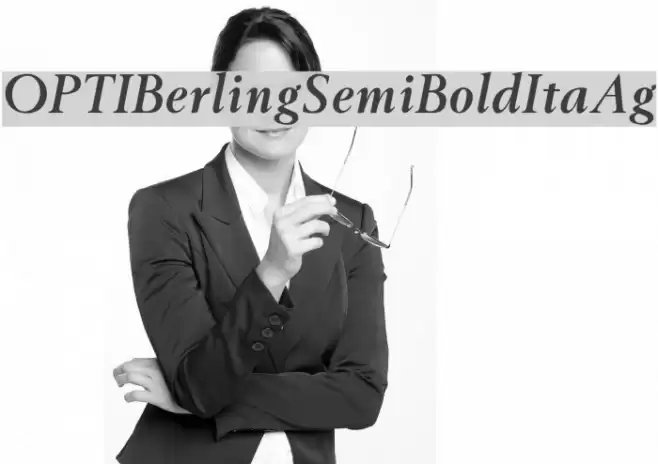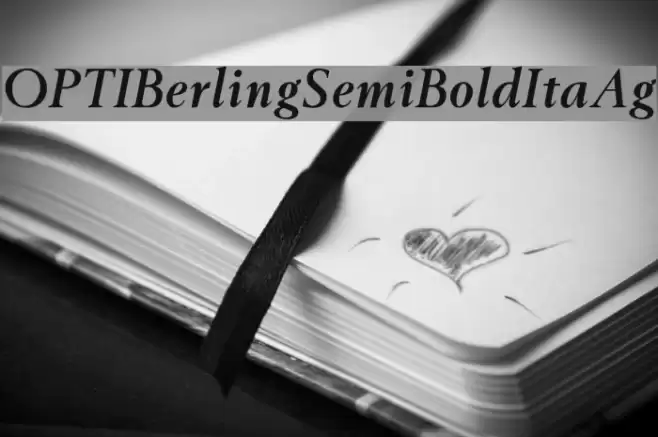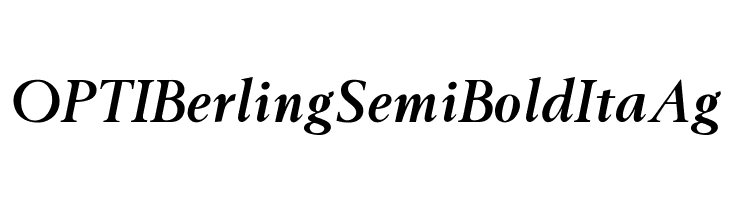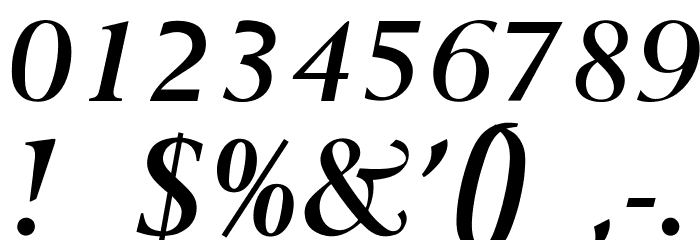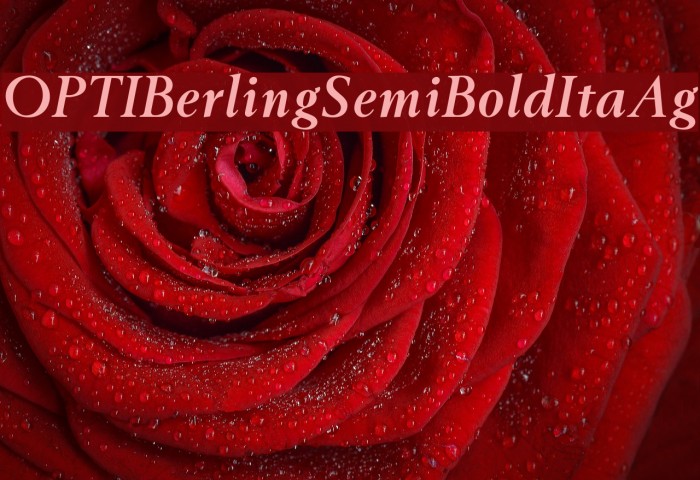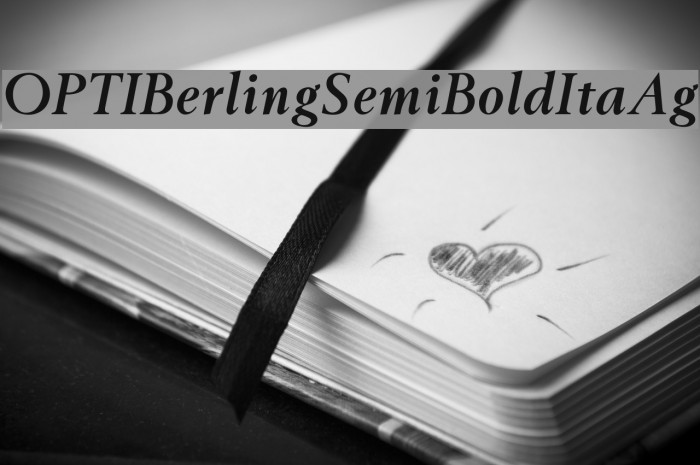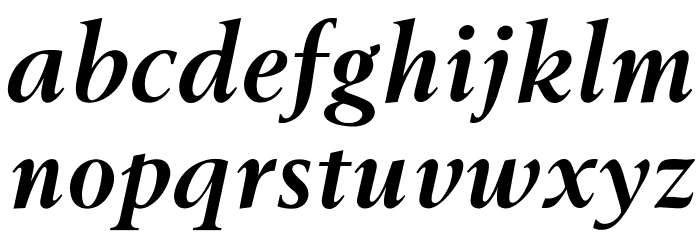
OPTIBerlingSemiBoldItaAg Font
OPTIBerlingSemiBoldItaAg Description
This elegant serif font features a semi-bold weight with a distinct italic style, giving it a sophisticated and classic appearance. The characters are well-defined with moderate contrast in stroke thickness, providing a balanced and readable text. The uppercase letters are slightly taller than average, while the lowercase letters maintain a traditional serif form. The numerals are proportional, aligning well with the overall style of the font. Special characters are included, maintaining the same elegant and refined design. This font is ideal for projects that require a touch of class and tradition.
A semi-bold italic serif font with a classic and elegant style from Uncategorized fonts.
- Proposed Projects: Suitable for book covers, formal invitations, branding, and editorial design.
- Overall Style: Classic